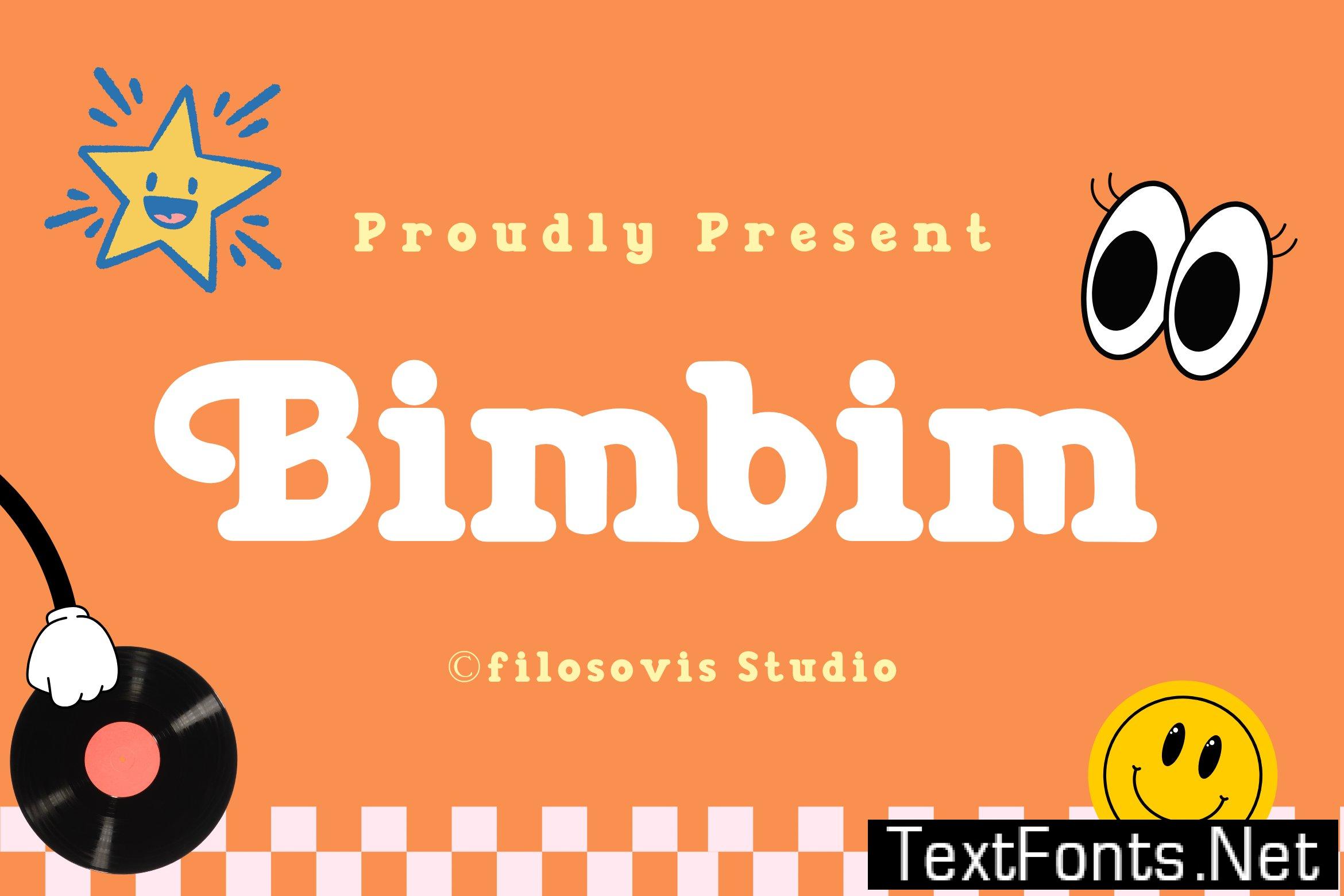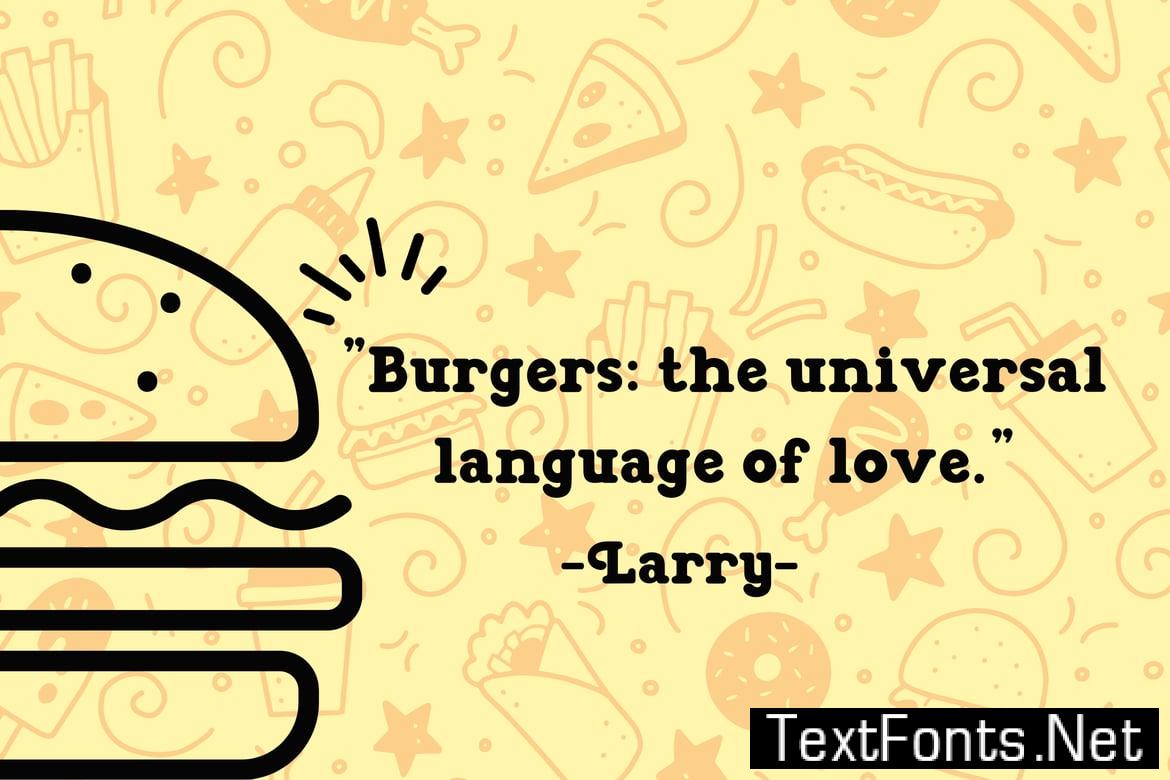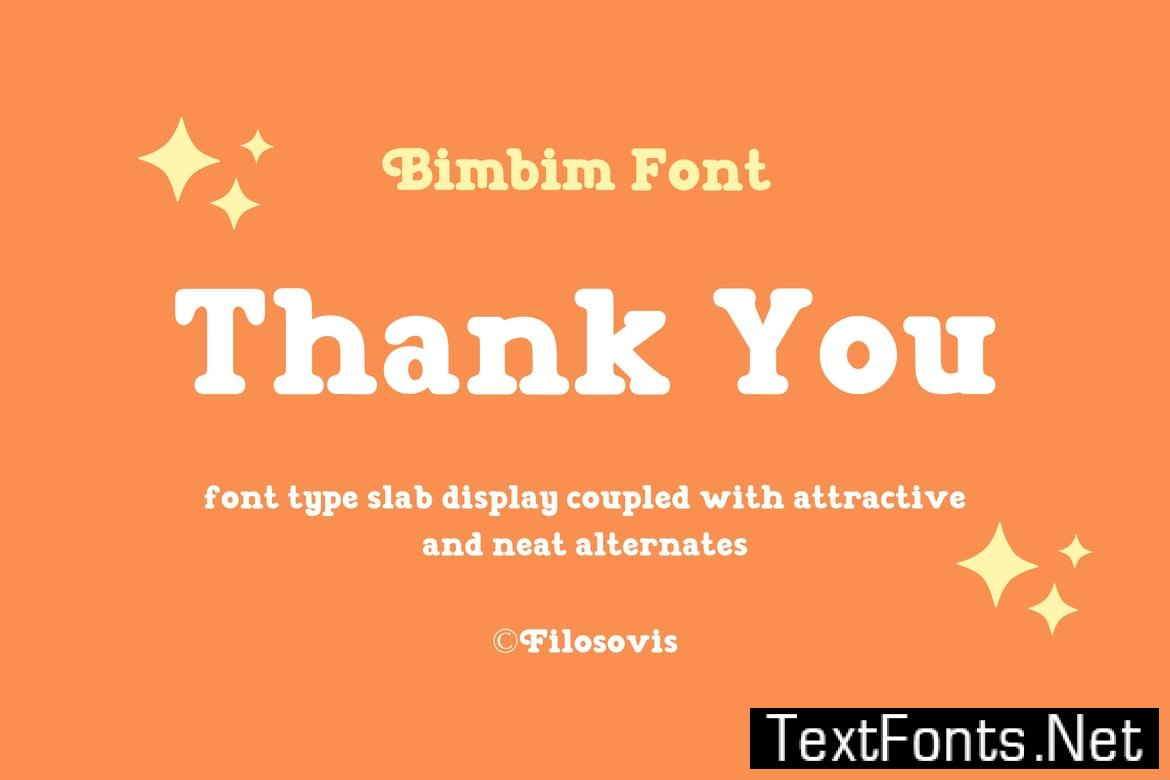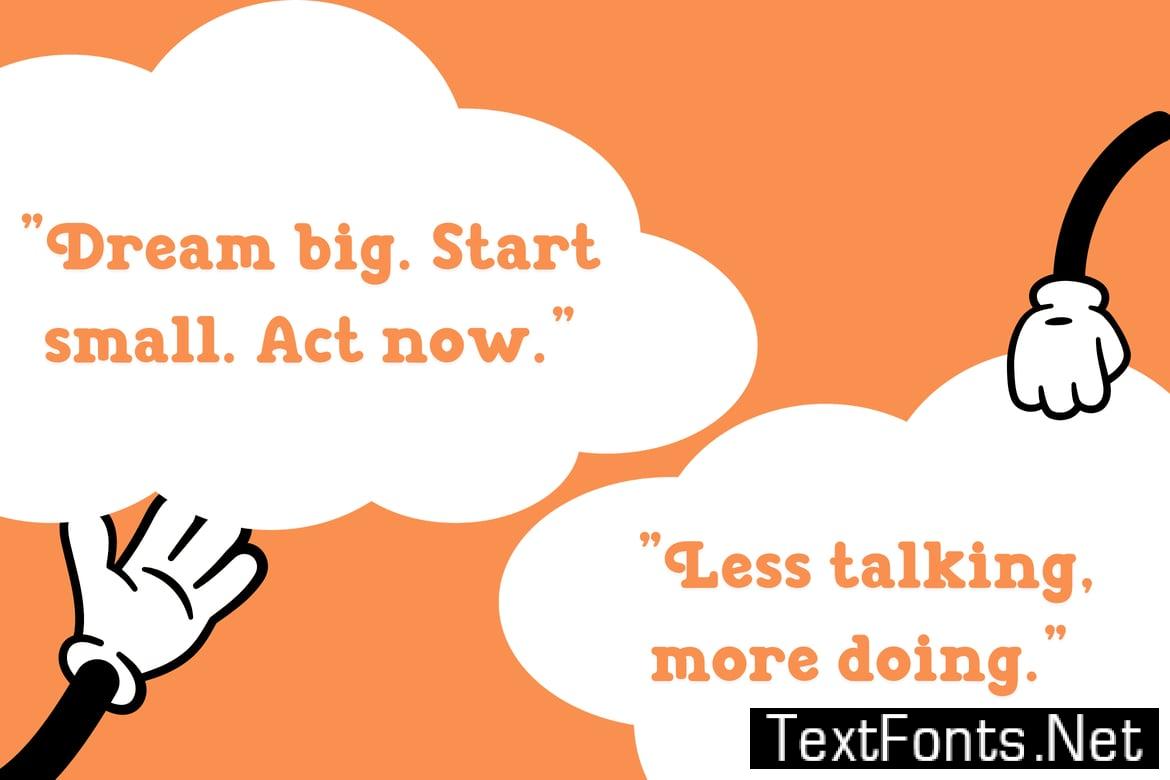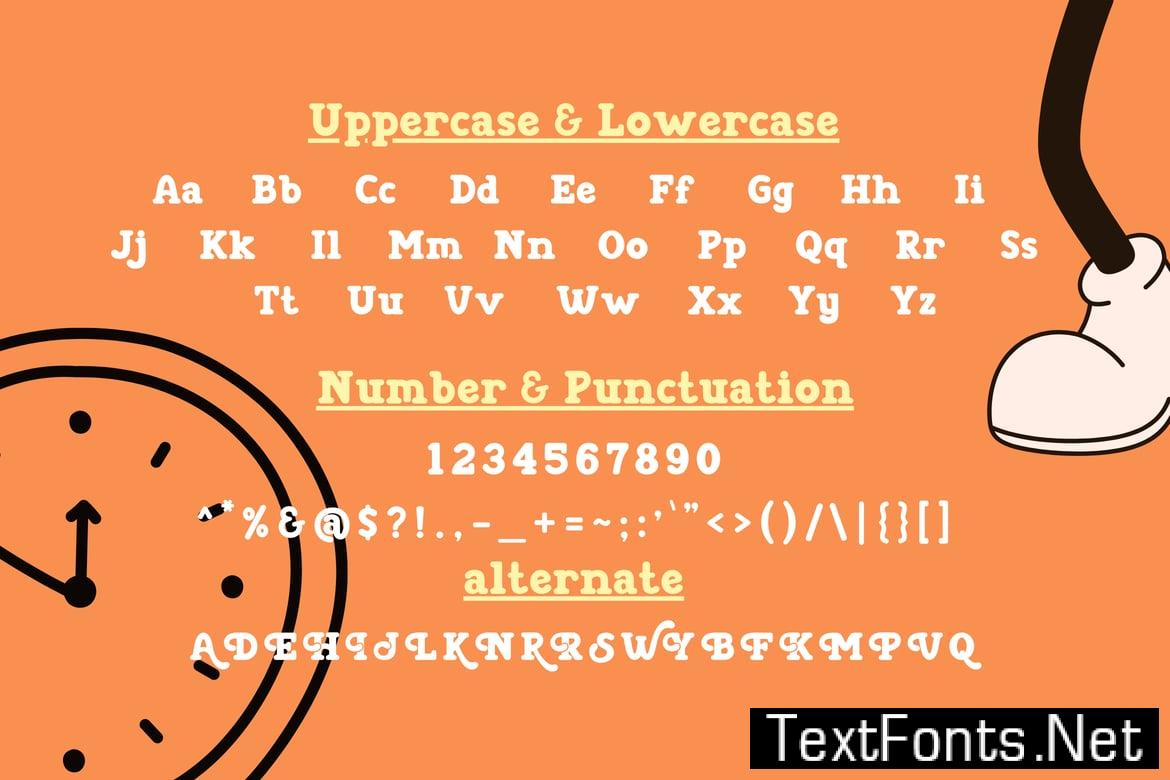
**Description**
For your creative project, use the Bimbim-themed decorative font. Decorative font is appropriate for every kind of design you produce, including greeting cards, posters, logos, and branding.